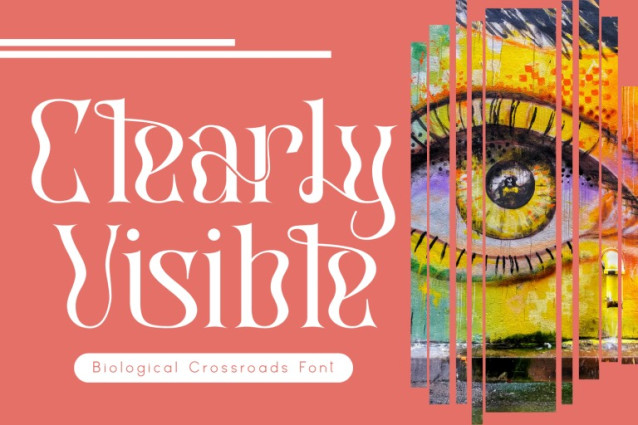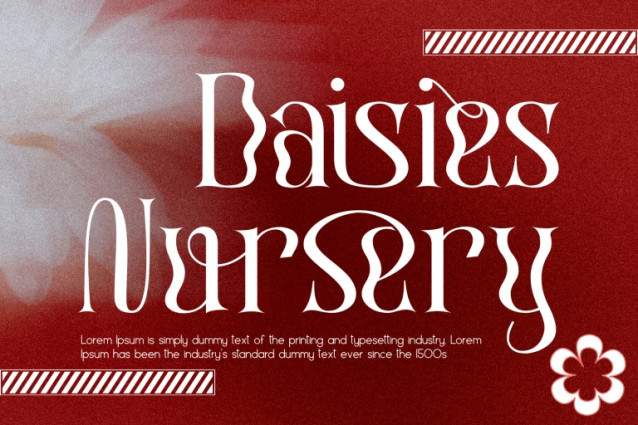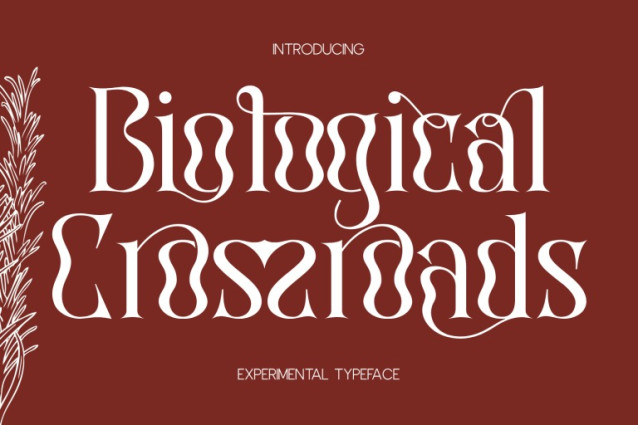
Biological Crossroads Font
Biological Crossroads – Psychedelic Font – A Surreal, Liquid Display Font, an avant-garde liquid display font that effortlessly bends the rules of traditional design. Blending classic high-contrast serif structures with surreal, melting distortions, this typeface is a true visual trip. Biological Crossroads is defined by its organic, flowing letterforms that appear to drip, ripple, and morph like liquid. The trippy, wavy contours create a captivating psychedelic effect, making your text look as though it’s breathing or viewed through a distorted lens. Despite its heavy distortion, it maintains an elegant balance between extremely thin strokes and bold, bulbous curves.
🔤Features:
Uppercase & Lowercase Letters
Around 100 Special Ligatures & Alternates
Accented Characters for multilingual support
🔤About 100 ligatures combined with Stylistic Alternates Font: